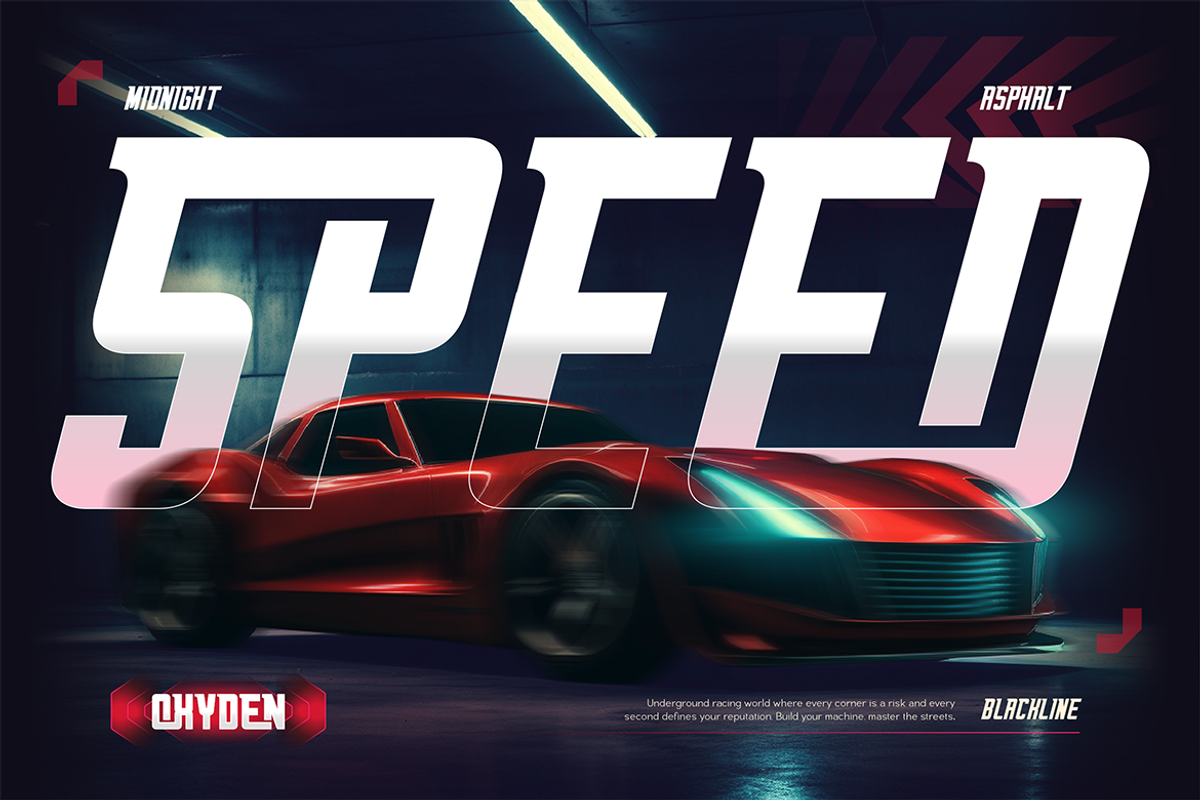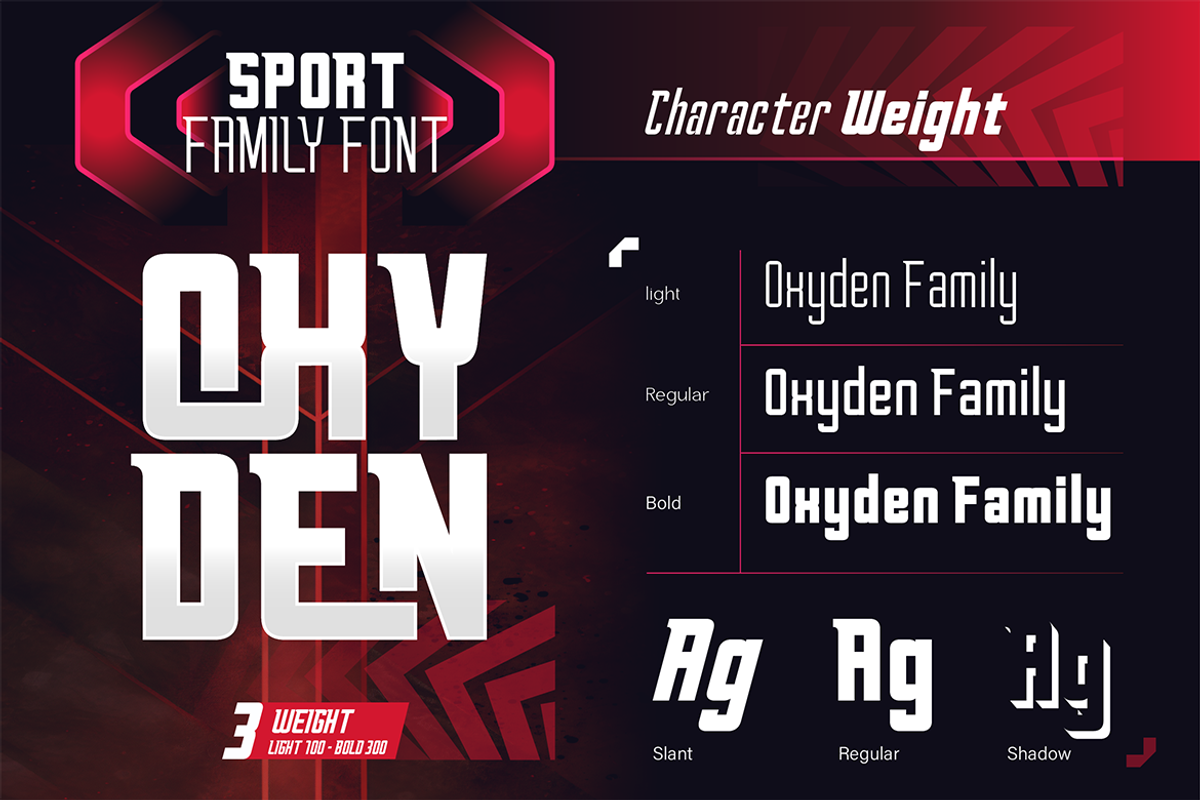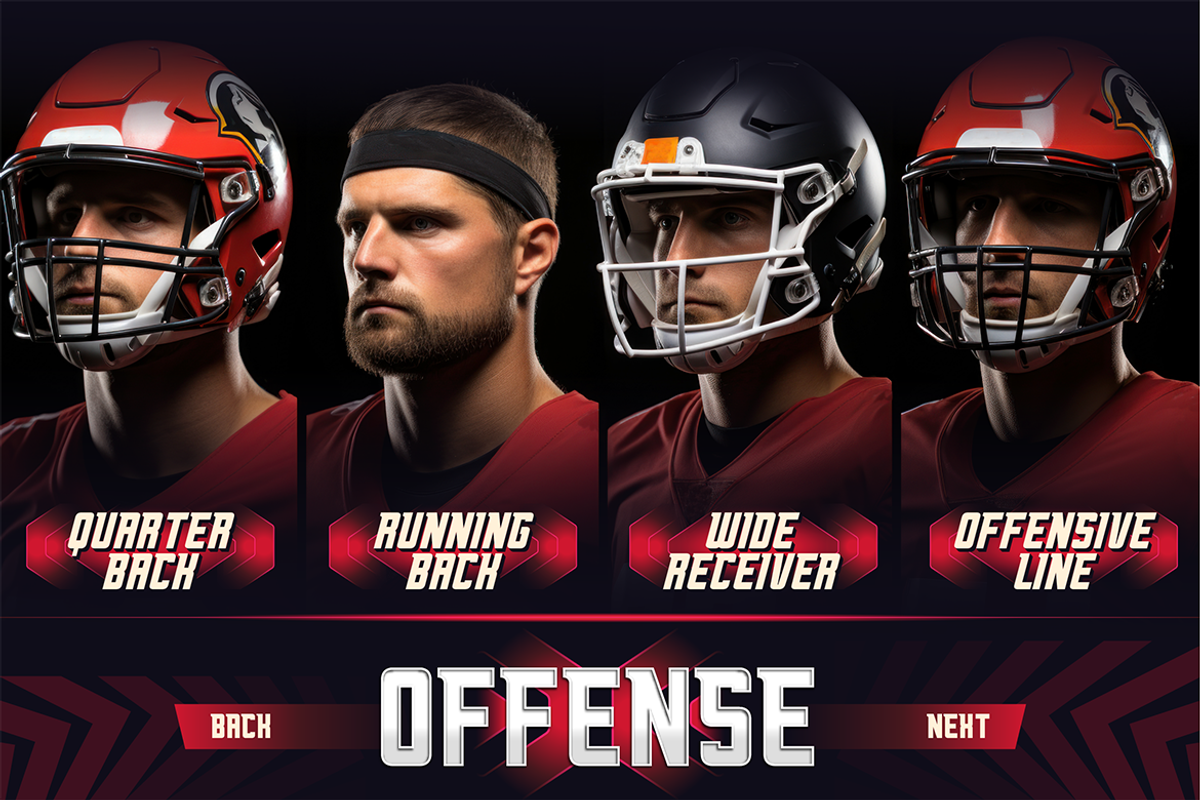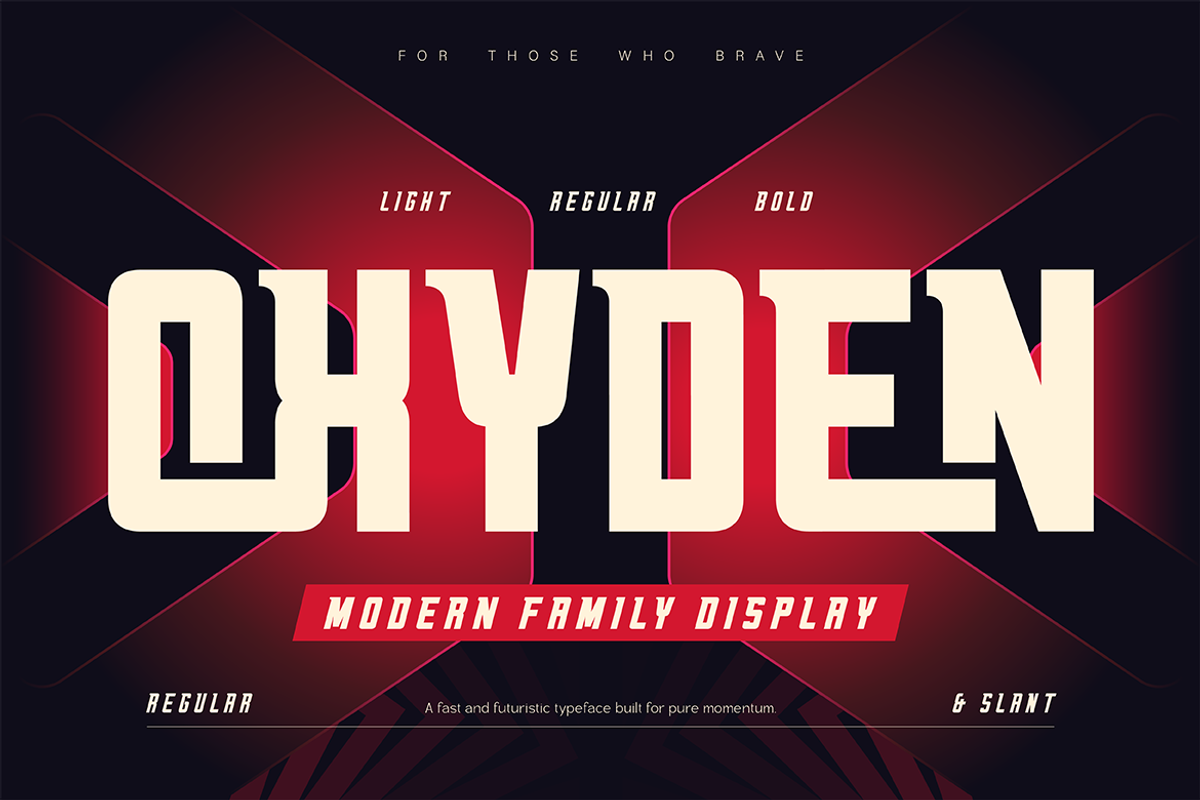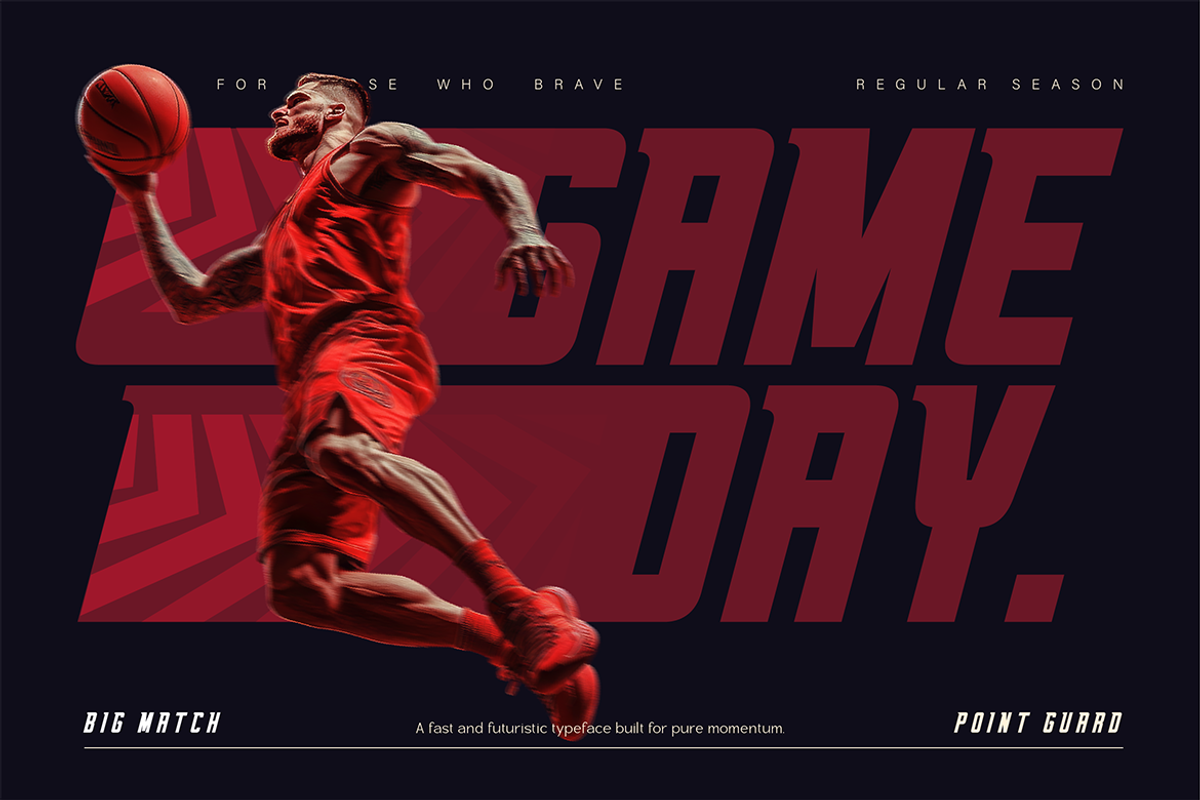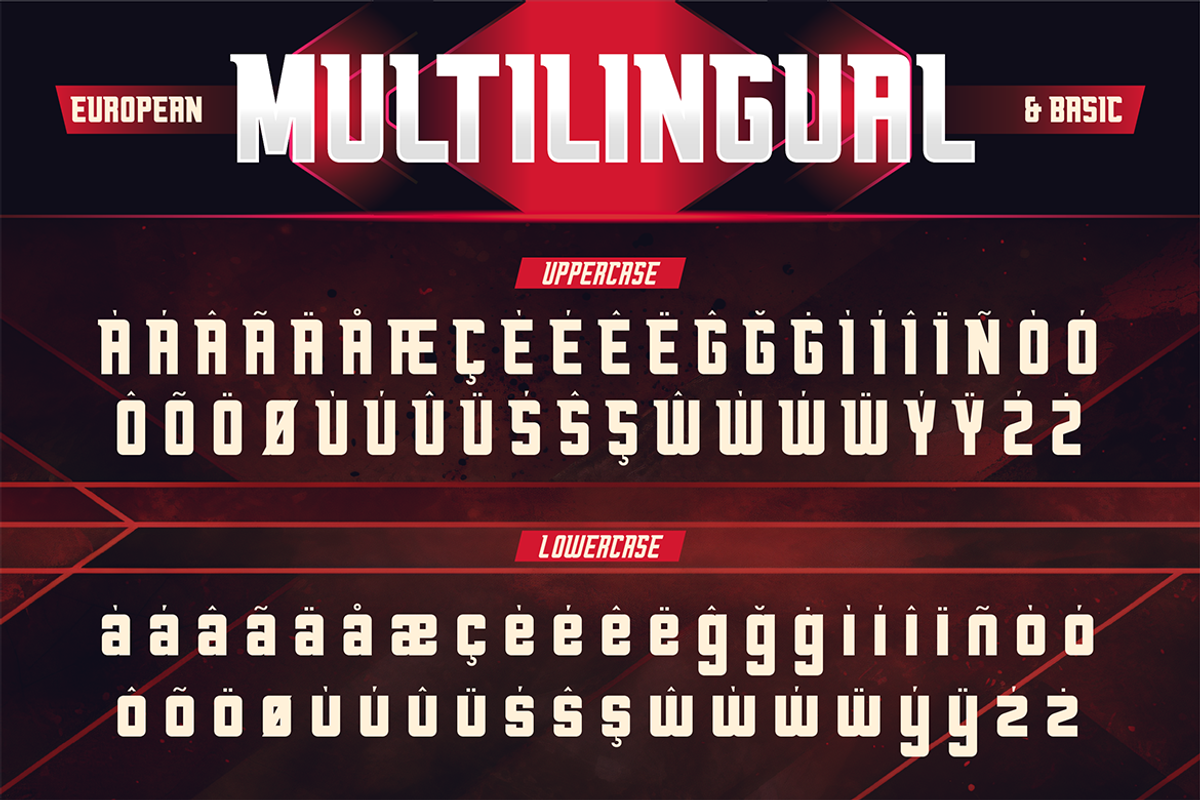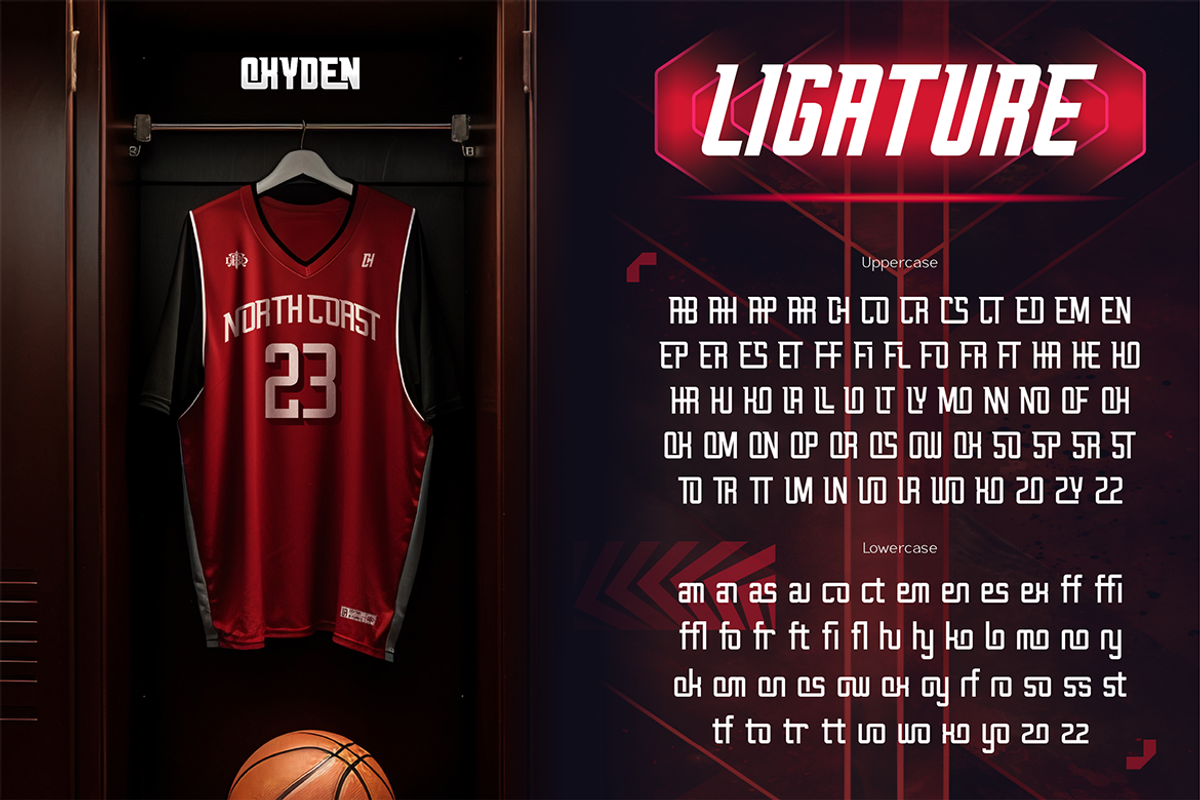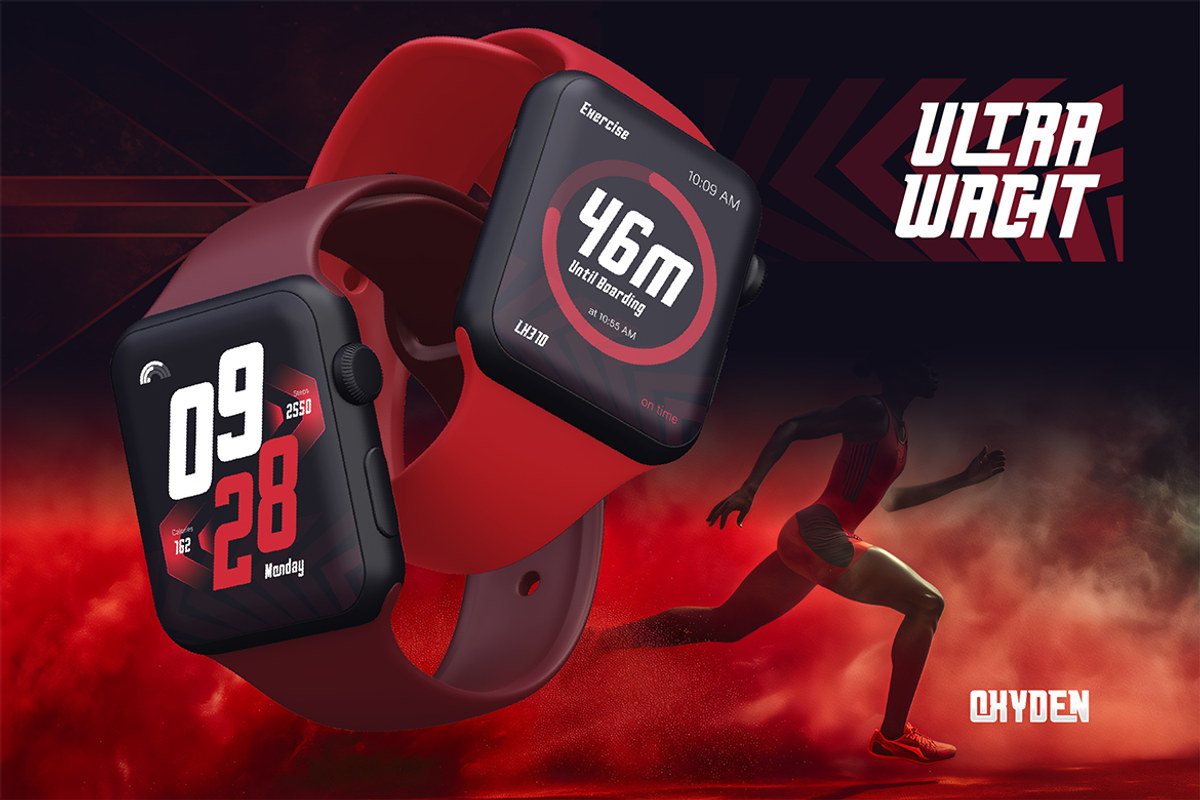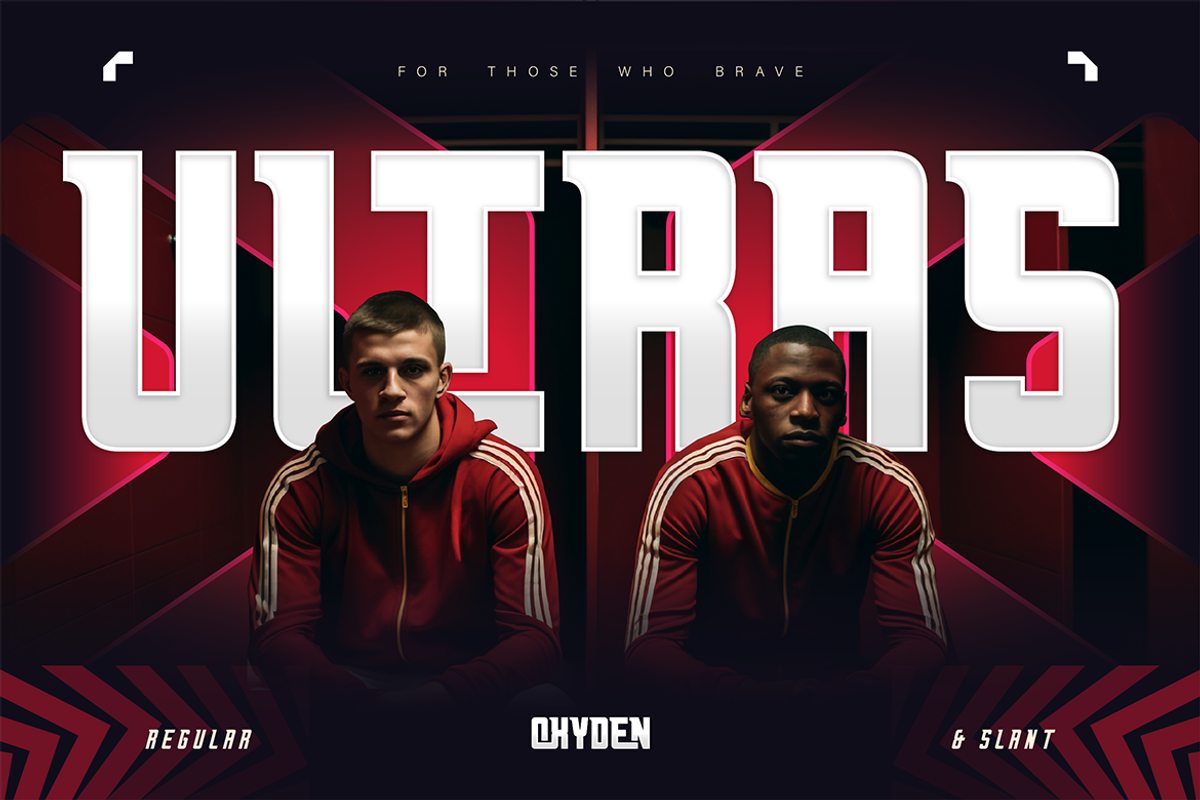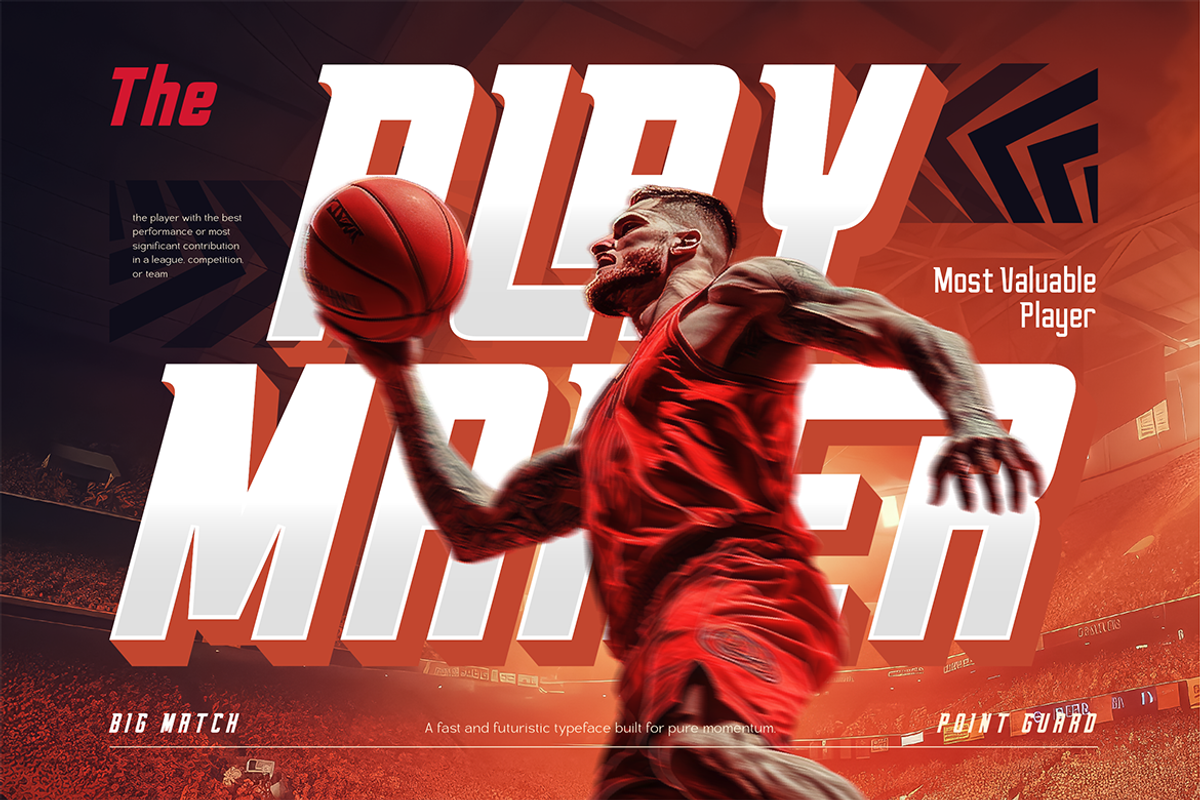
Oxyden
Oxyden is a modern display typeface designed with a strong geometric structure and confident proportions. Built for impact, this font features bold vertical strokes, sharp angles, and a slightly condensed form that gives it a fast, futuristic presence without feeling aggressive. What makes Oxyden stand out is its versatility as a font family. With multiple styles such as Light, Regular, Bold, Slant, and Shadow, it allows designers to create dynamic typographic systems while keeping a consistent visual identity. The slanted style adds motion, while the shadow style brings depth and dimension without relying on external effects. Even at heavy weights, Oxyden stays readable and sharp. Oxyden works exceptionally well for Headlines & titles, Sports branding, Racing & automotive visuals, Event posters, Editorial layouts, Logos and bold statements. This typeface is built to move, to compete, and to stand tall—modern, confident, and ready to perform.